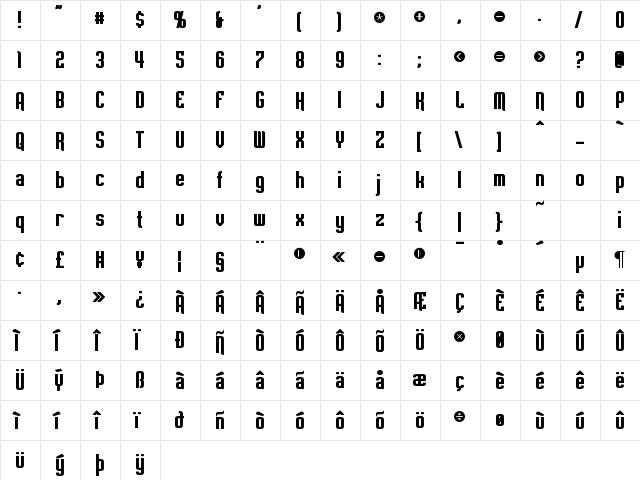
Empanada Bold
| Foundry | Neale Davidson |
| Designer | Neale Davidson |
Design Context for Empanada Typeface
Empanada is a composed and adaptable typeface that performs quietly and consistently across a wide range of design contexts. The heavy weight commands attention and anchors typographic hierarchies.